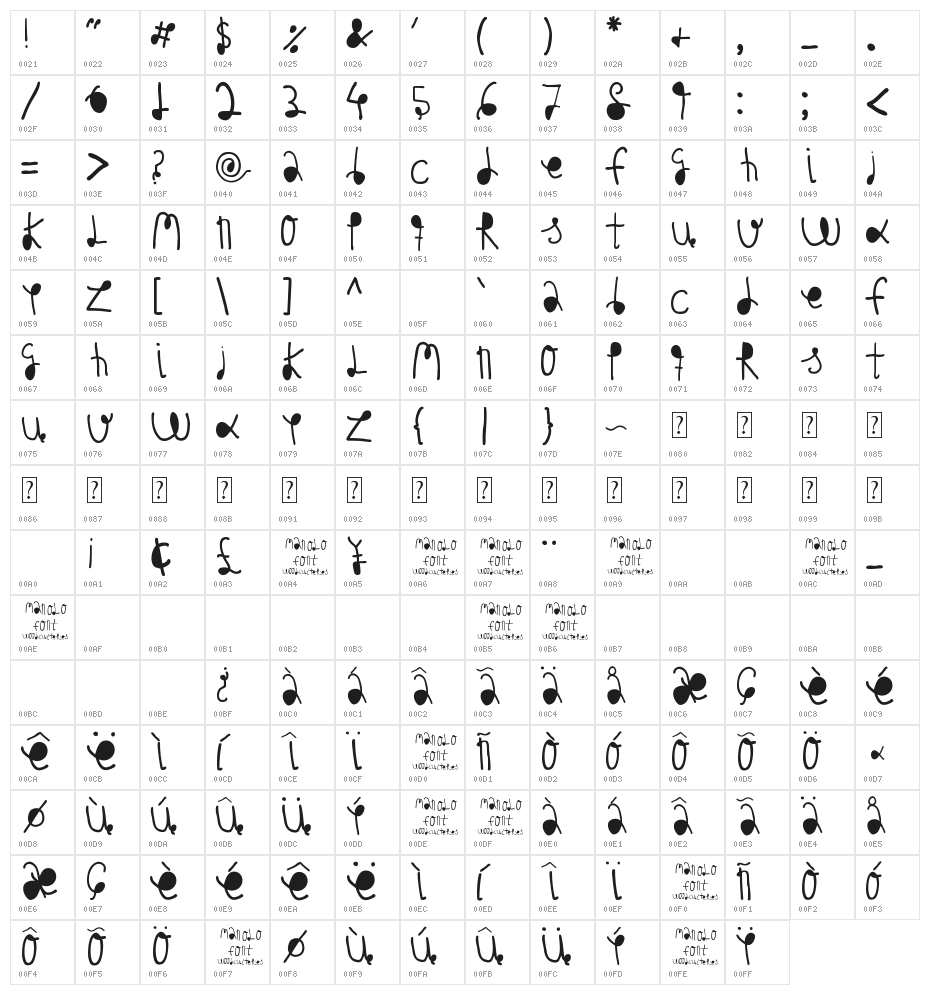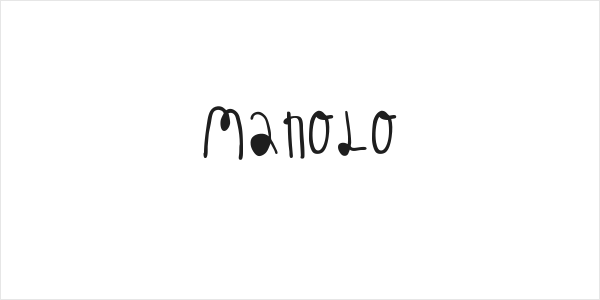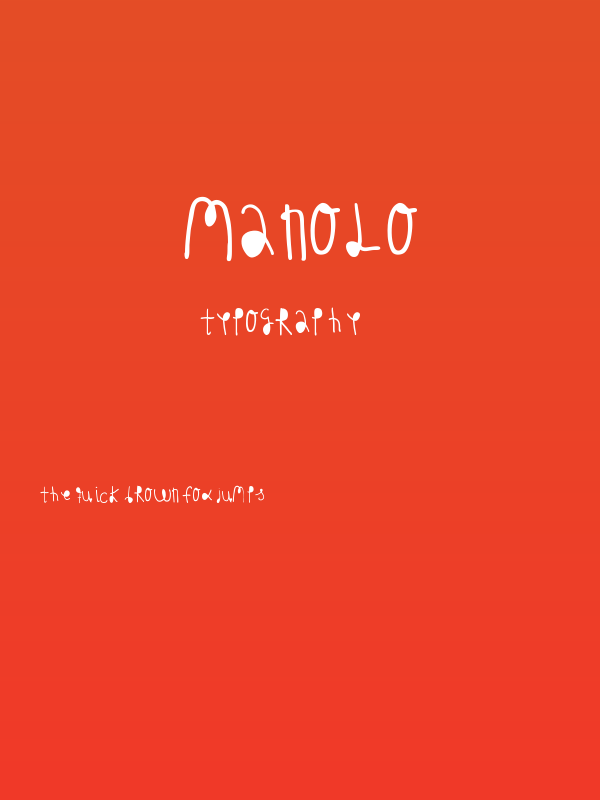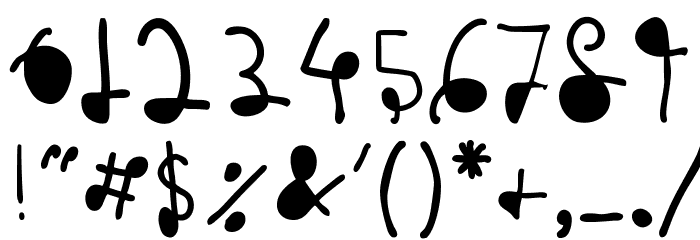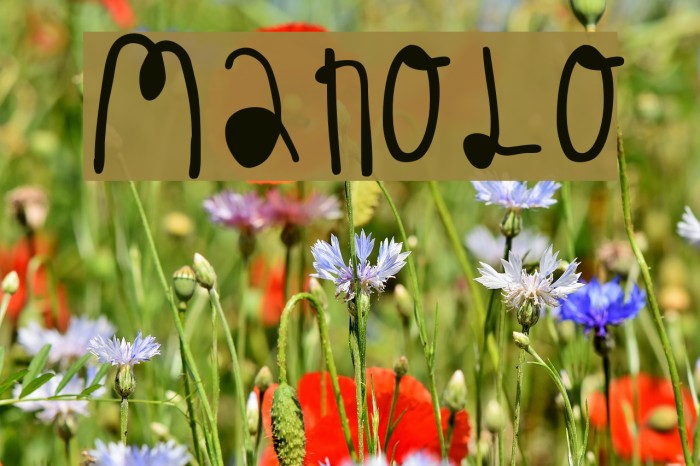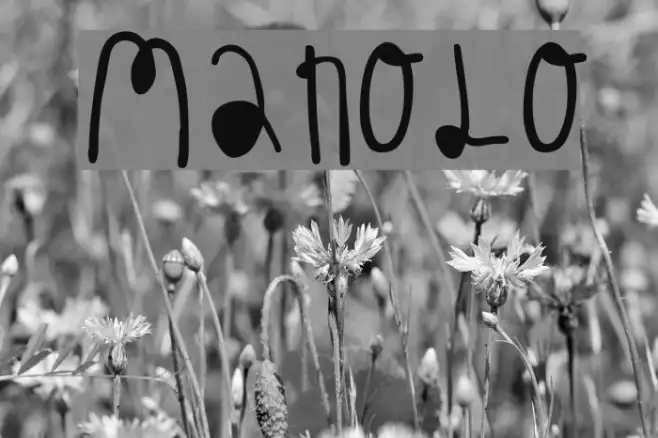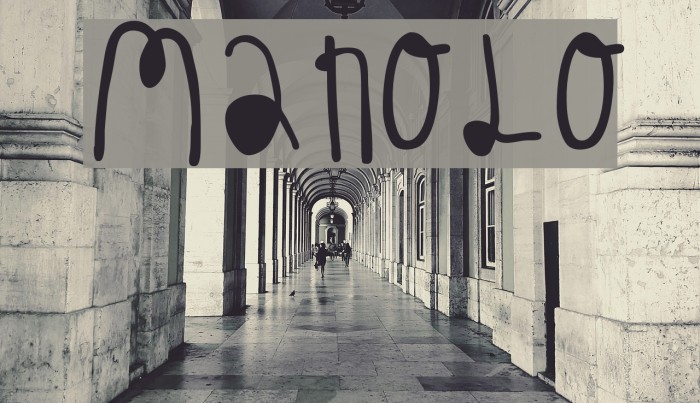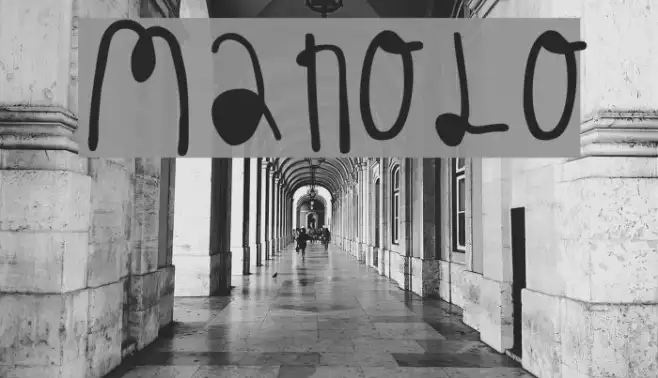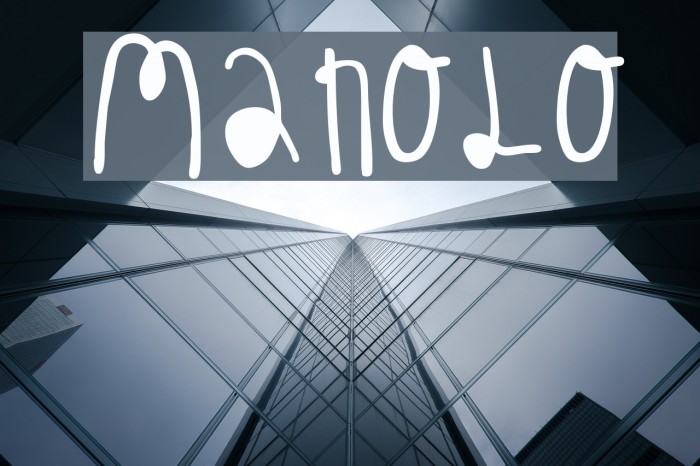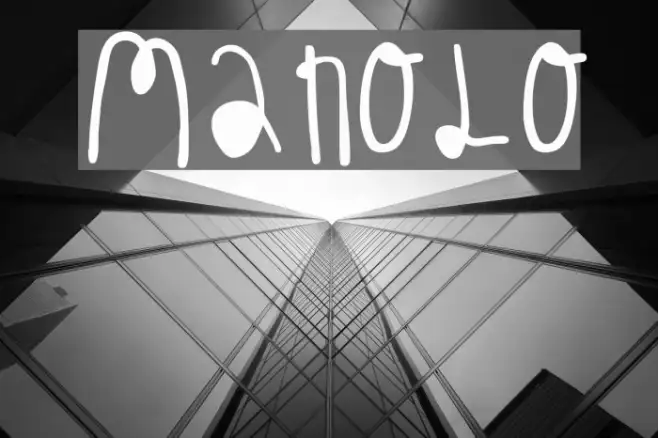
MANOLO Font
MANOLO Description
This font features a playful and whimsical design, characterized by its bold, rounded strokes and unique, exaggerated shapes. The letters have a hand-drawn quality, with varying stroke thicknesses that add a dynamic and lively feel. The uppercase and lowercase letters maintain a consistent style, with some characters featuring distinctive loops and curves. The numbers and special characters are equally expressive, complementing the overall aesthetic. This font exudes a sense of fun and creativity, making it suitable for projects that aim to capture attention and convey a lighthearted tone.
| Overall Style | Whimsical |
| Proposed Projects | Ideal for children's books, playful branding, creative posters, and artistic invitations. |